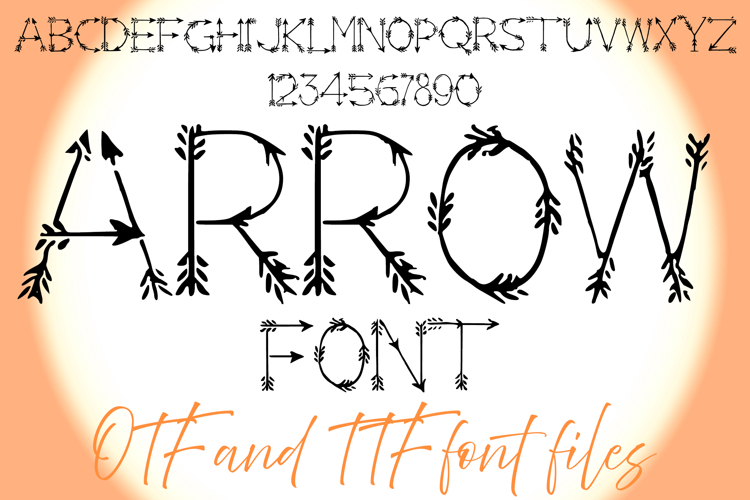
Arrow Lettering ABC Text Font Alphabet Pointing OTF Illustration
A pointy style font where you can create your own words and colour them to your vision!